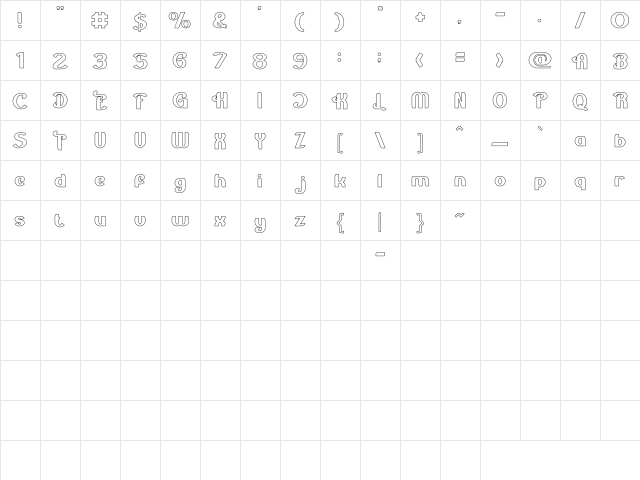
The Revolutions-Hollow Regular
Design Context for The Revolutions-Hollow Typeface
The Revolutions-Hollow is a composed and adaptable typeface that performs quietly and consistently across a wide range of design contexts.
Pro Tip: Use The Revolutions-Hollow in both headline and body roles to test its range before committing to a single application.